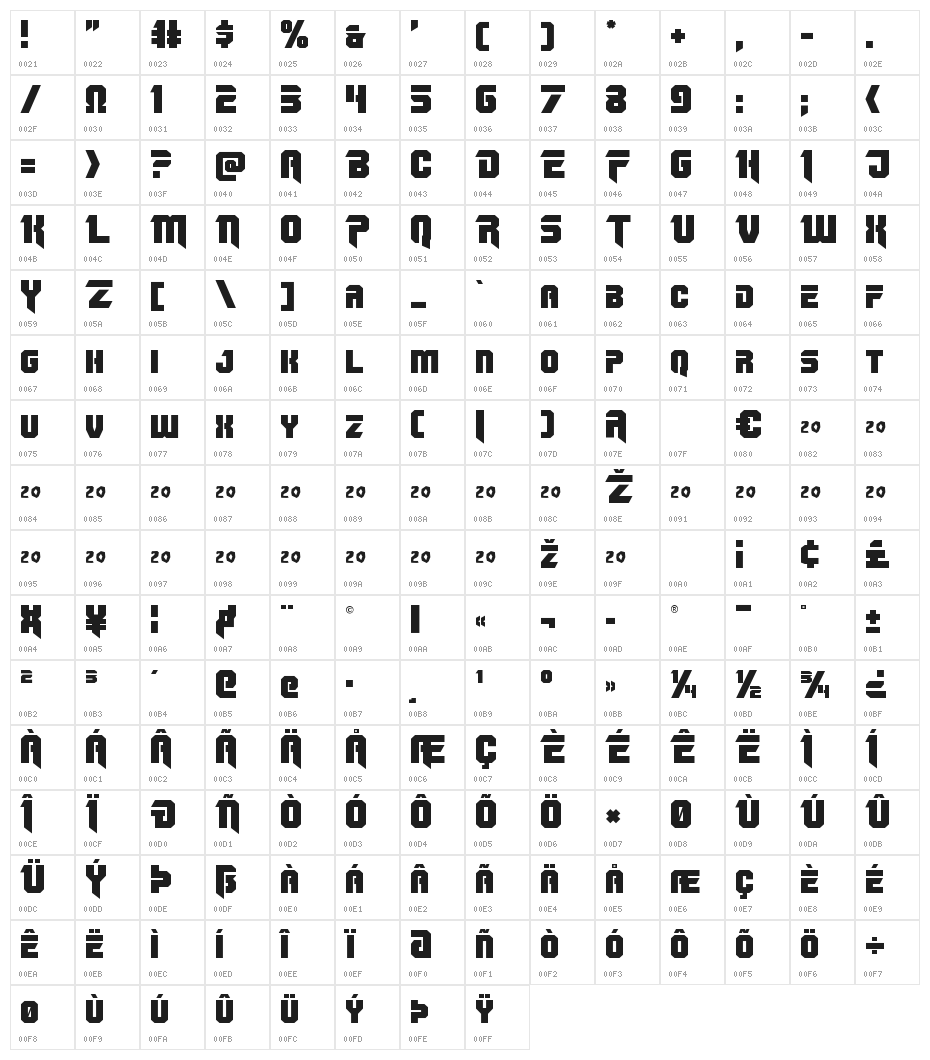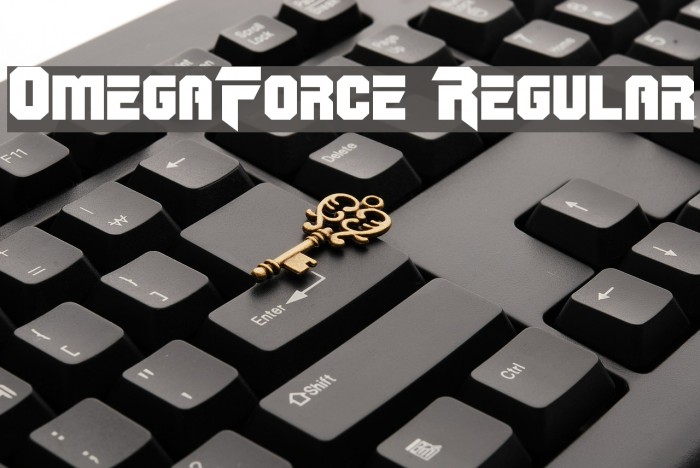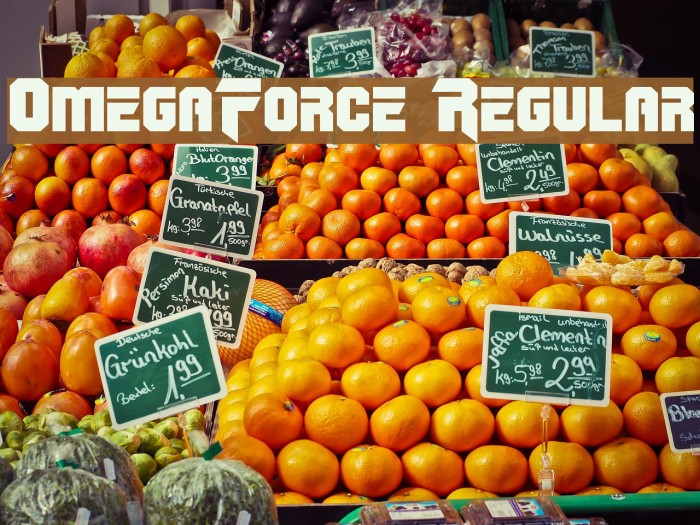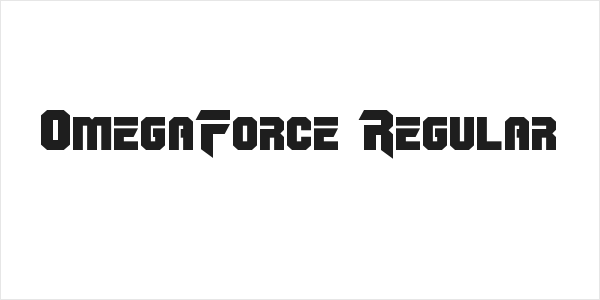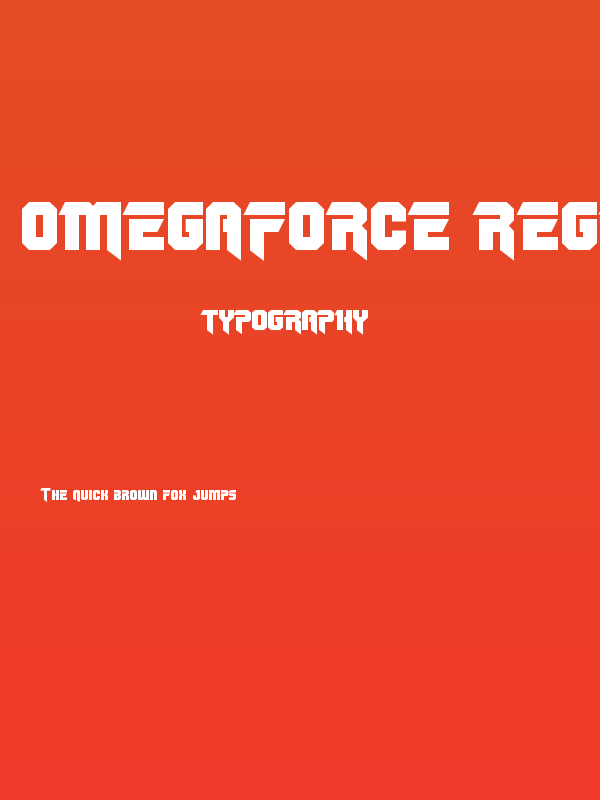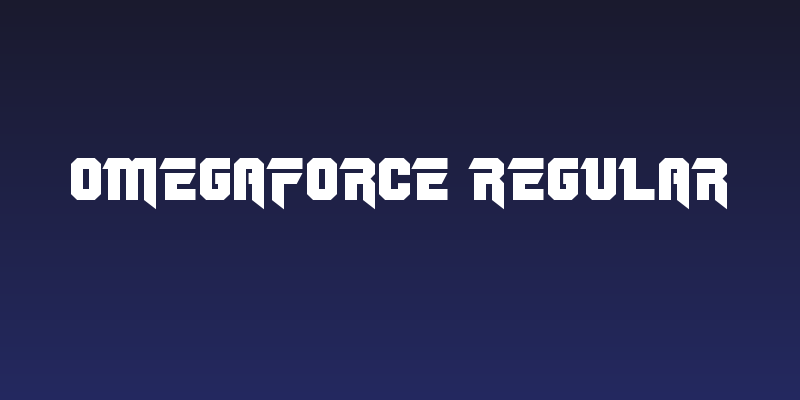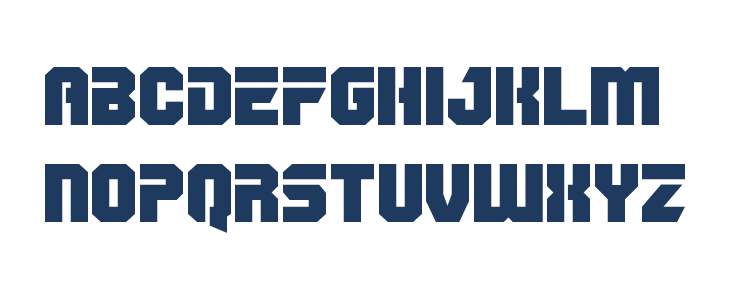
OmegaForce Regular Font
OmegaForce Regular Description
This font features a bold and geometric design, characterized by its sharp angles and blocky appearance. The uppercase letters are particularly striking, with a futuristic and industrial feel. The numbers and special characters maintain the same boldness, ensuring consistency across all glyphs. The font's strong presence makes it ideal for attention-grabbing designs. Its unique style is reminiscent of digital or sci-fi themes, making it suitable for projects that require a modern and edgy look.
| Proposed Projects | Ideal for video game titles, sci-fi movie posters, tech branding, and digital artwork. |